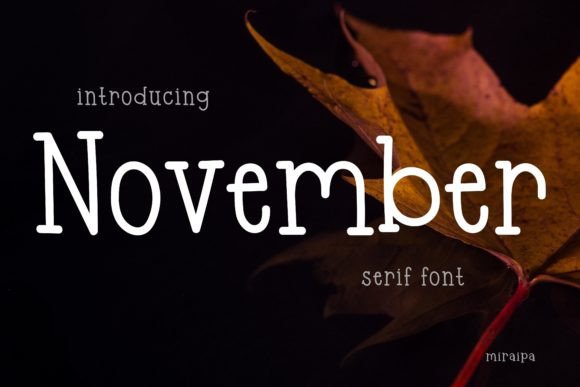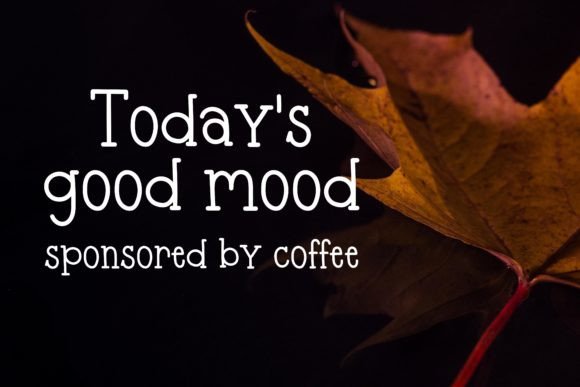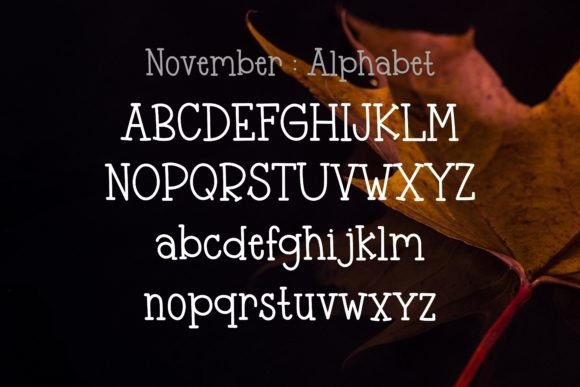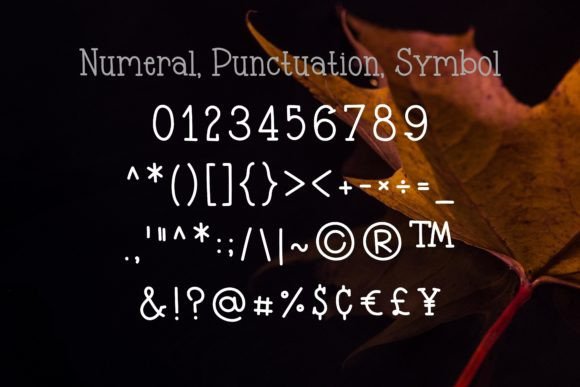
November Font
About the November Font
The November Font offers a perfect balance of form and function for your design needs. November is designed in a cute and friendly handwritten serif font style. It would be awesome for your diary and planner, but also great for back-to-school projects, weddings, party decorations, invitations, Fall, Halloween, Christmas, posters, blogs, clothing, child-related designs, greeting cards, social media posts, or anything that needs a friendly touch. Add it now to your fonts library, and it will bring any of your DIY projects to life.
November’s friendly, handwritten style shines in projects requiring a warm, approachable aesthetic. It’s ideal for headlines, short text blocks on posters or invitations, and branding elements where a handcrafted feel is desired. Consider it for packaging of artisanal goods, children’s products, or autumn-themed designs.
However, its informal nature makes it less suitable for body text or lengthy paragraphs, as readability would suffer. Avoid using it in UI design or situations demanding high legibility.
Pairing November with a clean sans-serif like Open Sans for body copy provides a strong contrast and enhances readability. For a more playful approach, consider a script font like Great Vibes, while a geometric sans-serif like Montserrat would offer a sophisticated counterpoint.